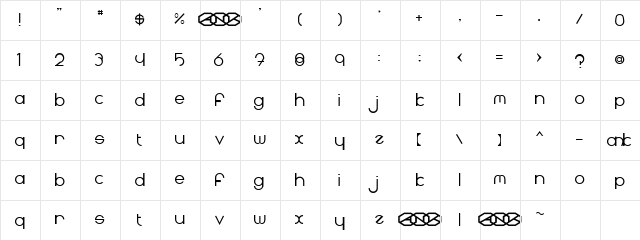
Radii Regular
Design Context for Radii Typeface
Radii offers clean, dependable letterforms without strong stylistic allegiance, making it a practical choice for designers who need flexibility.